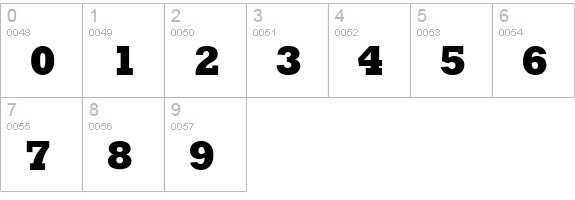
Roland Regular is the standard, neutral variant in the Roland typeface family \xE2\x80\x94 well suited to general body text, paragraphs, and standard typographic work.
Roland Regular font is a versatile and modern typeface that strikes the perfect balance between elegance and readability. With its clean lines and balanced proportions, Roland Regular is ideal for a wide range of design projects, from branding to editorial layouts. This font exudes a sense of sophistication and professionalism that will elevate any design it is used in. The best part about Roland Regular font is that it is completely free to download at FontsMarket.com. So whether you're a seasoned designer looking to add a new font to your collection or a beginner in need of a stylish typeface for your project, Roland Regular is the perfect choice. Download it today and see how this beautiful font can enhance your designs.